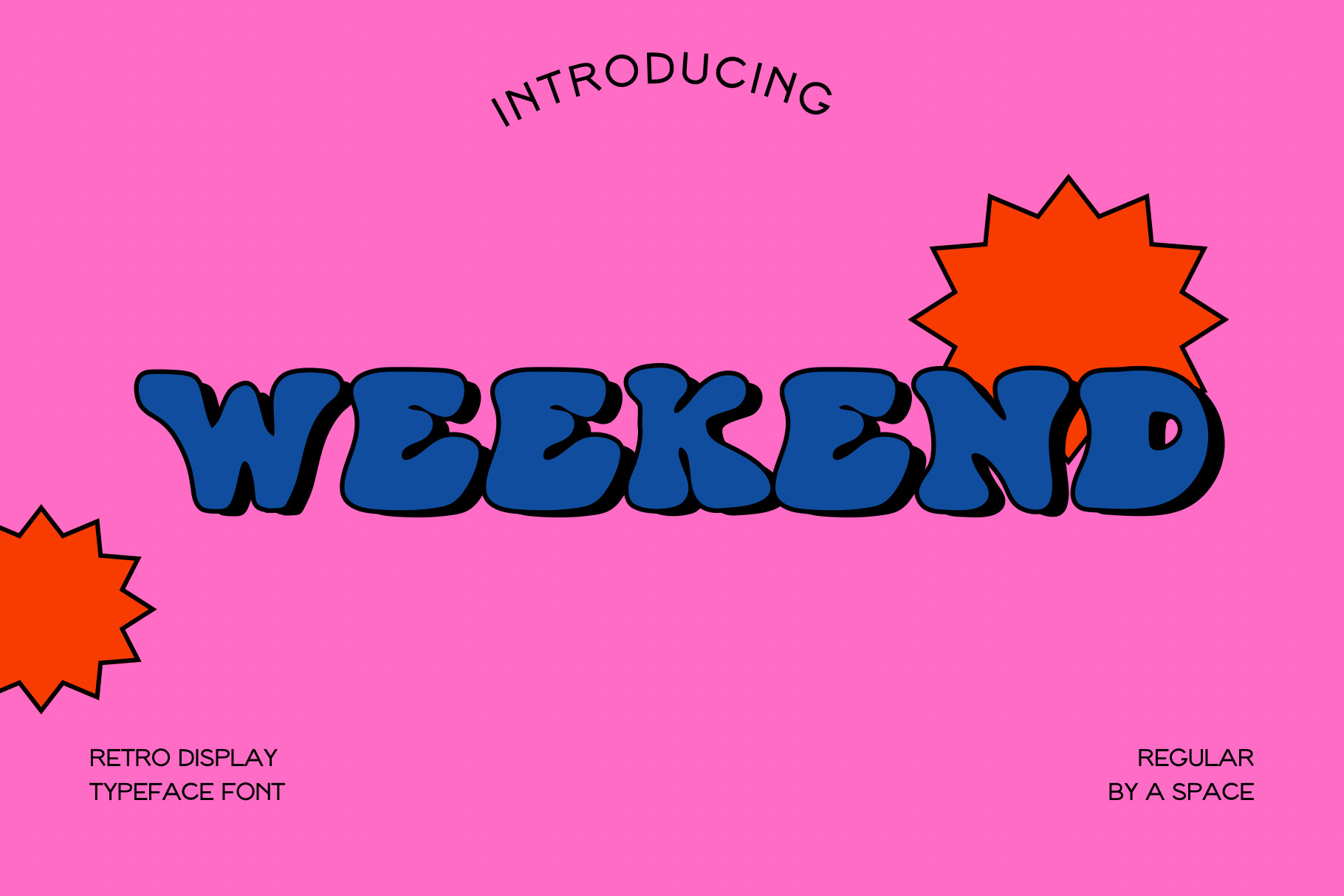
Weekend - Retro Display Font
Weekend font is a retro groovy font.This font can be used for anything such as shirt designs, cards, art, quotes, social media and so much more!